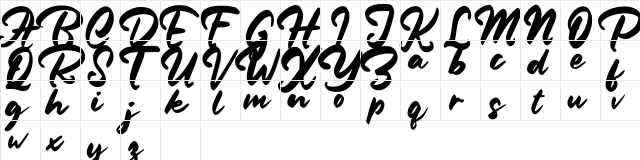
Baleria Regular Font Preview
Baleria Regular
Baleria Regular Font Details
| Designer | Aldedesign 2019 |
Design Context for Baleria Typeface
Baleria is a composed and adaptable typeface that performs quietly and consistently across a wide range of design contexts.